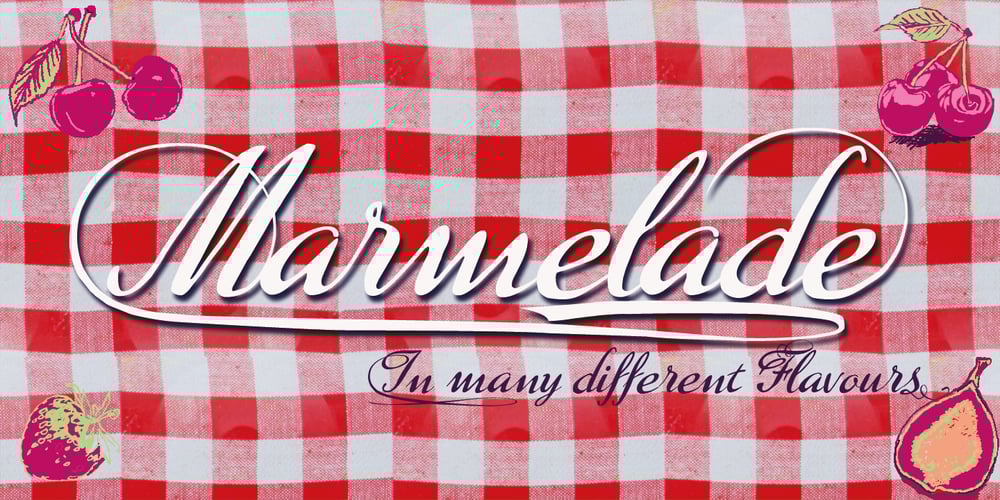
Marmelade Font Family was designed by Gert Wiescher and published by Wiescher Design. Marmelade contains 14 styles and family package options. »Marmelade« is a useful script, always ready to adorn that latest jam-jelly-confiture-marmelade project. It is a joining-script, or a script with printed small caps, whatever you like. Marmelade comes in two different scripts »Basic« and »Plus«, and one »Print« set with small caps. I added a set with »Start-and-End« letters as well as one set with those long »Underswings« below the caps. For good measure I give you three sets of readymade »Words« in English, French and German. Last not least there is a set of »Fruit« sketches that come in handy for everyday jams. I sell all the flavors in one set only, but at a boiled down price. Enjoy!